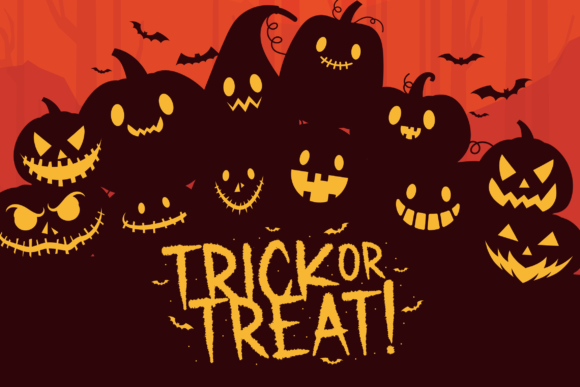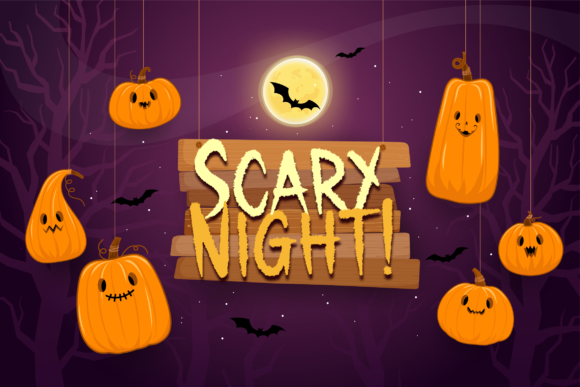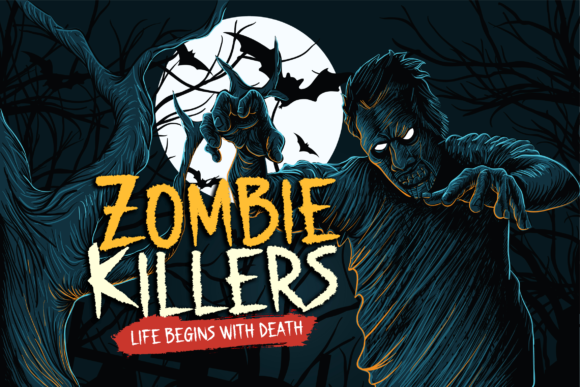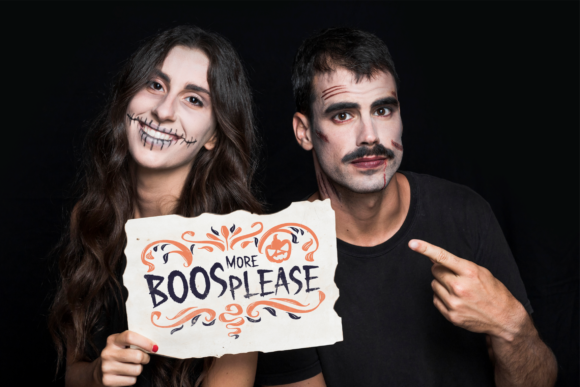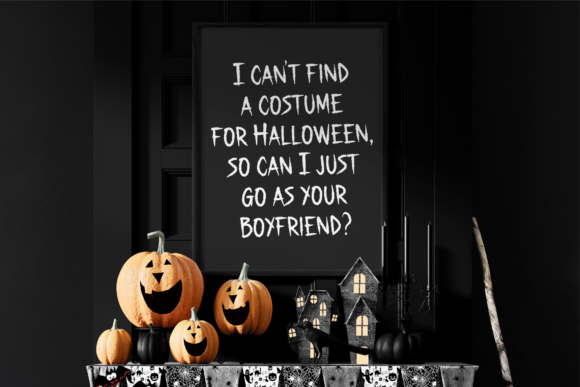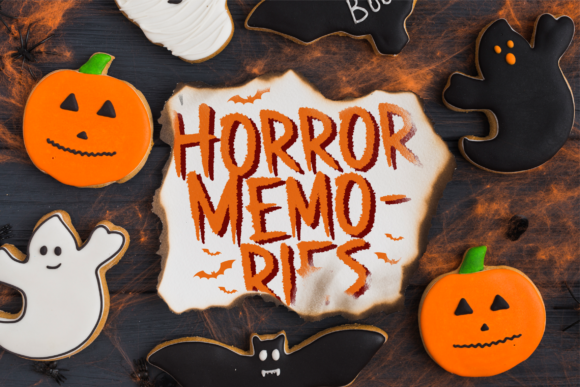
Gecko Moria Font: The Ultimate Choice for Spooky and Crafty Projects
Are you looking for a font that can add a spooky touch to your Halloween-related projects or crafty ideas? Look no further than the Gecko Moria Font! This cool, rough textured, and creepy looking display font is perfect for designers and crafters who want to create unique and eye-catching designs.
What is Gecko Moria Font?
Gecko Moria Font is a display font that features a rough, textured look that’s reminiscent of creepy crawlies. The font has a unique, hand-drawn style that’s perfect for creating spooky and eerie designs. With its bold and rugged texture, Gecko Moria Font is sure to grab attention and add a touch of horror to any project.
Features of Gecko Moria Font
- Cool and Creepy Design: Gecko Moria Font features a unique and creepy design that’s perfect for Halloween-related projects or any crafty idea that requires a spooky touch.
- Rough Textured Look: The font has a rough, textured look that’s reminiscent of creepy crawlies, adding a touch of horror to any design.
- Perfect for Display Use: Gecko Moria Font is designed specifically for display use, making it perfect for headlines, titles, and other prominent text elements.
- Easy to Read: Despite its rough texture, Gecko Moria Font is easy to read, making it perfect for designs that require a clear and concise message.
- Highly Versatile: Gecko Moria Font can be used for a wide range of projects, from Halloween decorations to crafty DIY projects.
Uses of Gecko Moria Font
Gecko Moria Font is a highly versatile font that can be used for a wide range of projects, including:
- Halloween Decorations: Use Gecko Moria Font to create spooky Halloween decorations, such as signs, banners, and posters.
- Crafty DIY Projects: Add a touch of horror to your crafty DIY projects, such as scrapbooking, card making, and other paper crafts.
- Graphic Design: Use Gecko Moria Font to create eye-catching graphic designs, such as logos, brochures, and flyers.
- Web Design: Add a spooky touch to your website with Gecko Moria Font, perfect for Halloween-themed websites or blogs.
Tips for Using Gecko Moria Font
Here are some tips for using Gecko Moria Font:
- Use it Sparingly: Gecko Moria Font is a bold and attention-grabbing font, so use it sparingly to avoid overwhelming your design.
- Pair it with Other Fonts: Pair Gecko Moria Font with other fonts to create a unique and interesting design.
- Have Fun: Most importantly, have fun with Gecko Moria Font! Get creative and experiment with different designs and ideas.
Gecko Moria Font is a cool, rough textured, and creepy looking display font that’s perfect for designers and crafters who want to add a spooky touch to their projects. With its unique design and highly versatile uses, Gecko Moria Font is sure to become a favorite font for many designers and crafters. So why wait? Get creative with Gecko Moria Font and add a touch of horror to your next project!